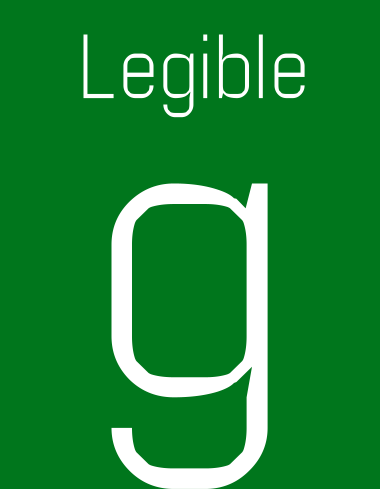
• The fifth of a series: dm Informe is a highly clean, modern, and technical face that is good for paragraphs or headers with a spreadsheet/tech feel.
This is a light version of dm Informe 01 by demonics. The propeller bricks, combined with a few composites, allow for near-perfect curves with a width of 1/3 of a brick, or 33% thinner than the macaroni bricks. Clone to see how it's done. It is designed to work well at small sizes, but it probably won't work as well larger. Special thanks to demonics, for creating the family in the first place, and for allowing cloning. The letters I least like are N and S, so suggestions are appreciated.
Very nice. And, I agree—the S and N could be better. I do like your alternate S, however. I definitely love the M and X.
excellent. great work. i'd suggest making rounded bowls a bit more round, if possible. also, divine ink traps.
All right … looking at how this was done is interesting, as I've never really tried a 2x2 construction.
@demonics: Thanks. The technique I'd like to use requires a 1:6 curve. I'll try to find a way around it.
@sarreyn: 2 x 2 filters are what I like experimenting with most. Eight of my ten Top Picks have come from 2 x 2 filters (or in the case of fs gridded, 1.75 x 1.75).